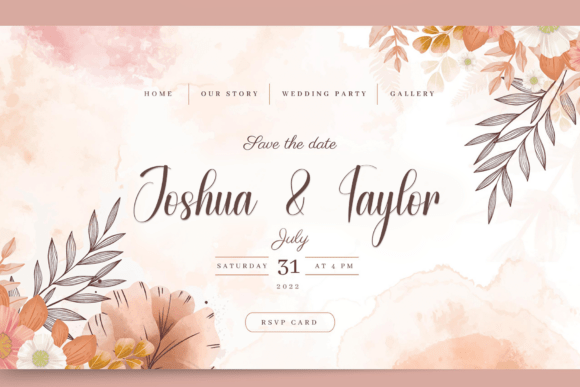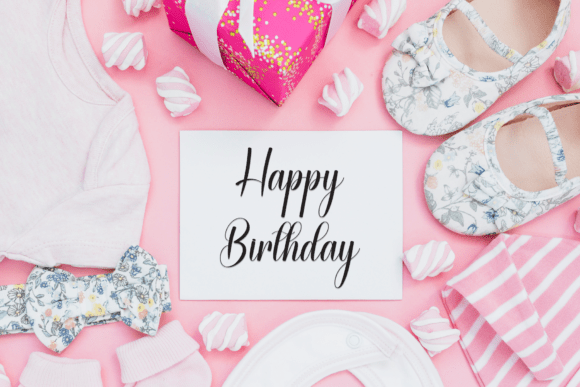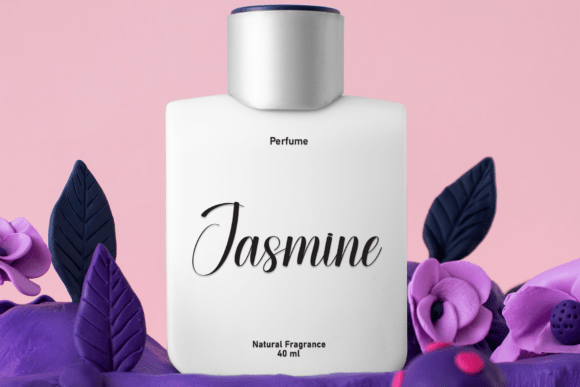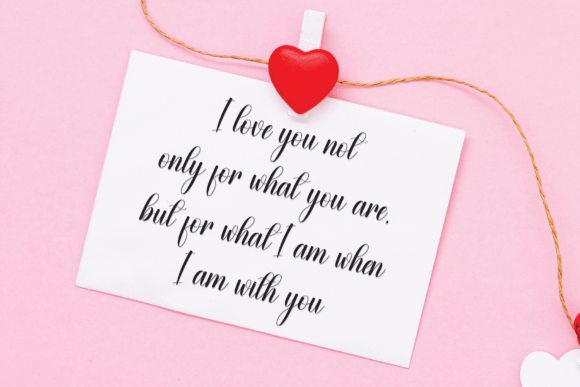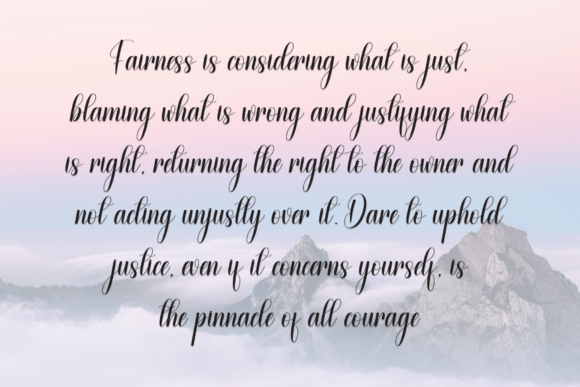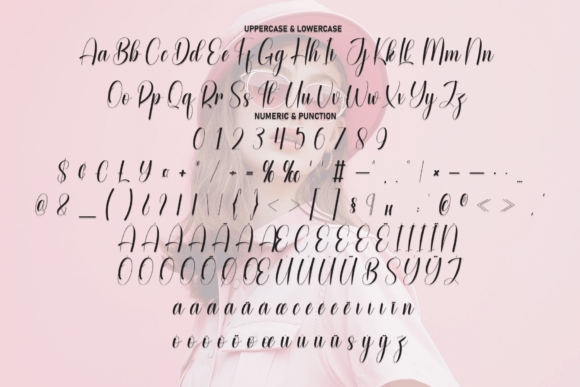
The Enchanting Barbie Font: A Designer’s Delight
I’ll never forget the time I was working on a wedding invitation project, and my client asked for a font that was both playful and elegant. I scoured the internet, tried out countless fonts, but nothing seemed quite right. That was until I stumbled upon the captivating Barbie Font. With its handwritten script charm and ebullient spirit, it was the perfect fit for the project. In this article, I’ll share with you why I’m obsessed with this font, its features, and how to make the most of it in your designs.
Here’s what I’m loving about the Barbie Font:
- ✨ Sweet and charming: This font exudes a sense of whimsy and playfulness, making it perfect for creative projects.
- ✅ Ebullient spirit: The font’s carefree and lively vibe infuses any design with a sense of joy and enthusiasm.
- 💕 Versatile: From wedding invitations to handmade cards, this font adapts to any design style.
A few things to keep in mind:
- 🤔 Limited use in small sizes: The font’s intricate details can get lost when used in small sizes, so it’s best to use it in larger sizes or for headlines.
- ⚠️ Not suitable for body text: Due to its ornate nature, this font is best used for titles, headings, or short paragraphs.
- Experiment with OpenType features like swashes and stylistic alternates to add more flair to your text.
- Explore the Glyphs panel to access additional characters, such as ligatures and stylistic alternates.
The Story Behind Barbie Font
While the origins of Barbie Font are unclear, it’s likely that it was inspired by classic handwritten scripts and the world of fashion. Imagine a designer, inspired by the elegance of haute couture and the playfulness of children’s illustrations, creating a font that embodies both worlds. The result is a font that’s both sophisticated and whimsical.
| What is Barbie Font best used for? | Barbie Font is perfect for creative projects like wedding invitations, handmade cards, and other designs where a playful, charming touch is desired. |
| Is Barbie Font suitable for body text? | No, Barbie Font is best used for titles, headings, or short paragraphs due to its ornate nature. |